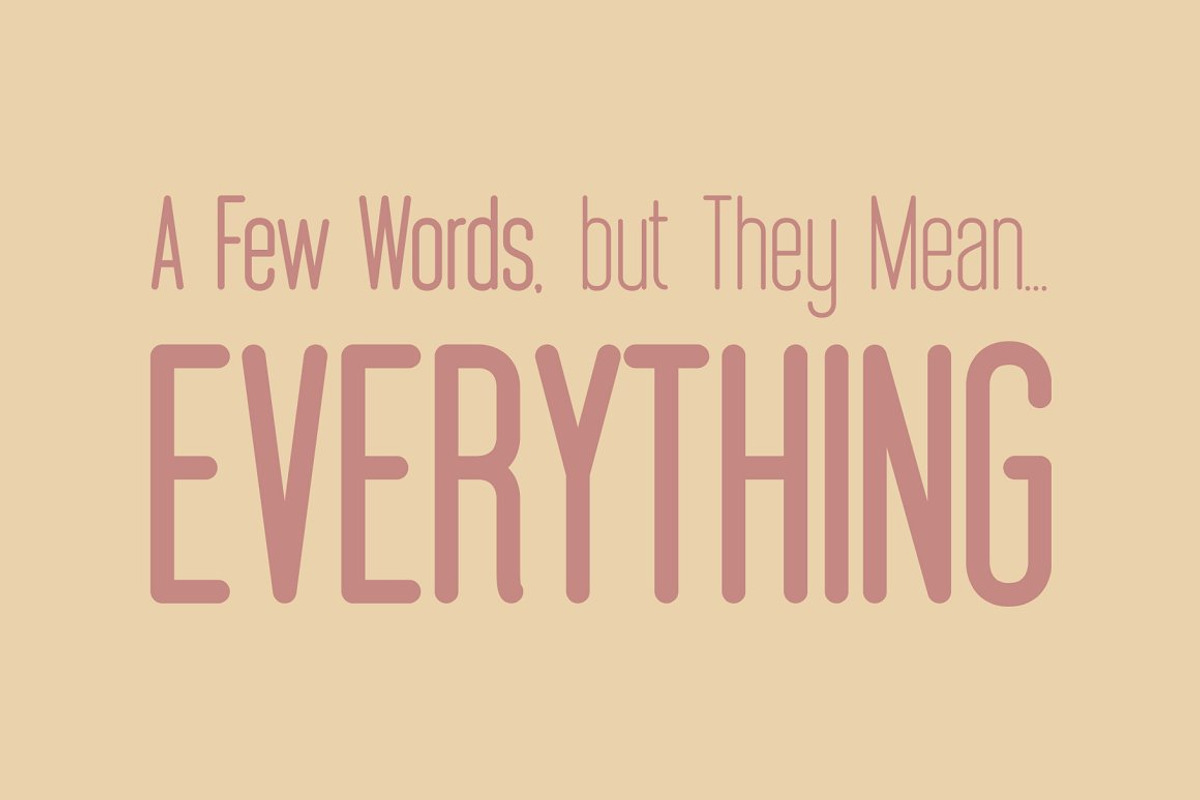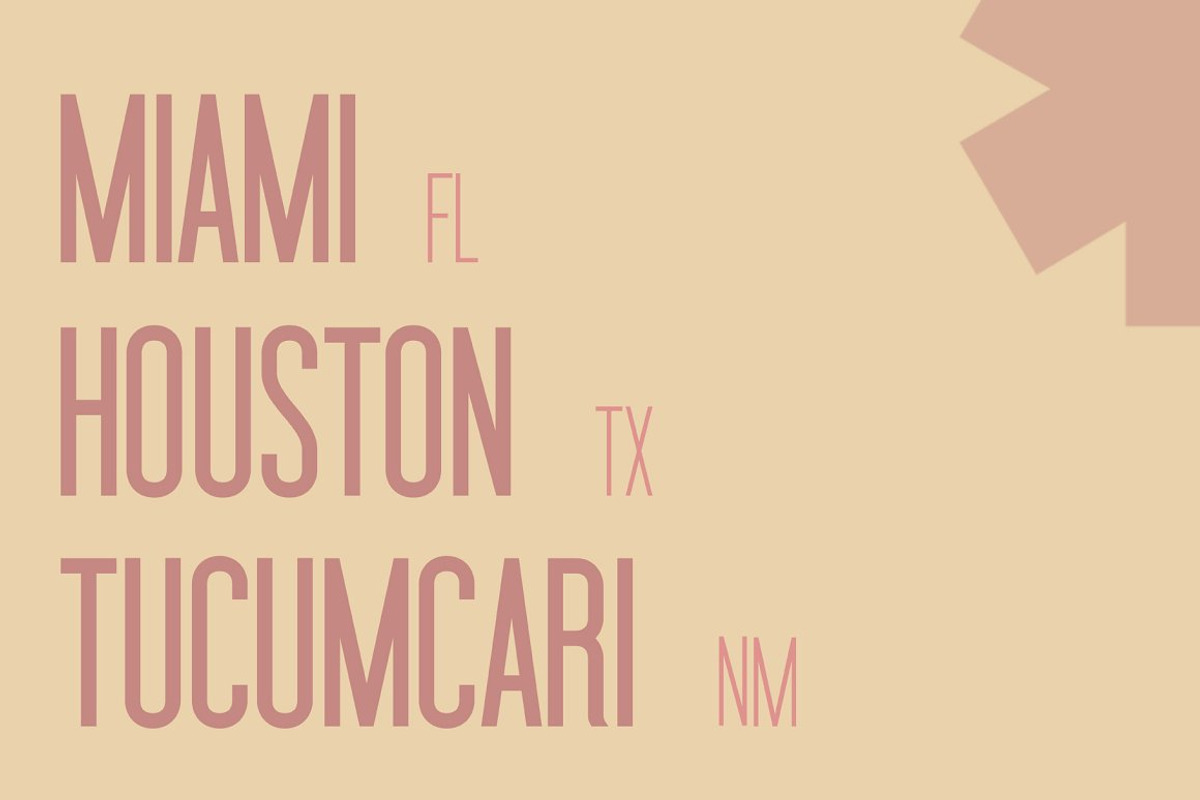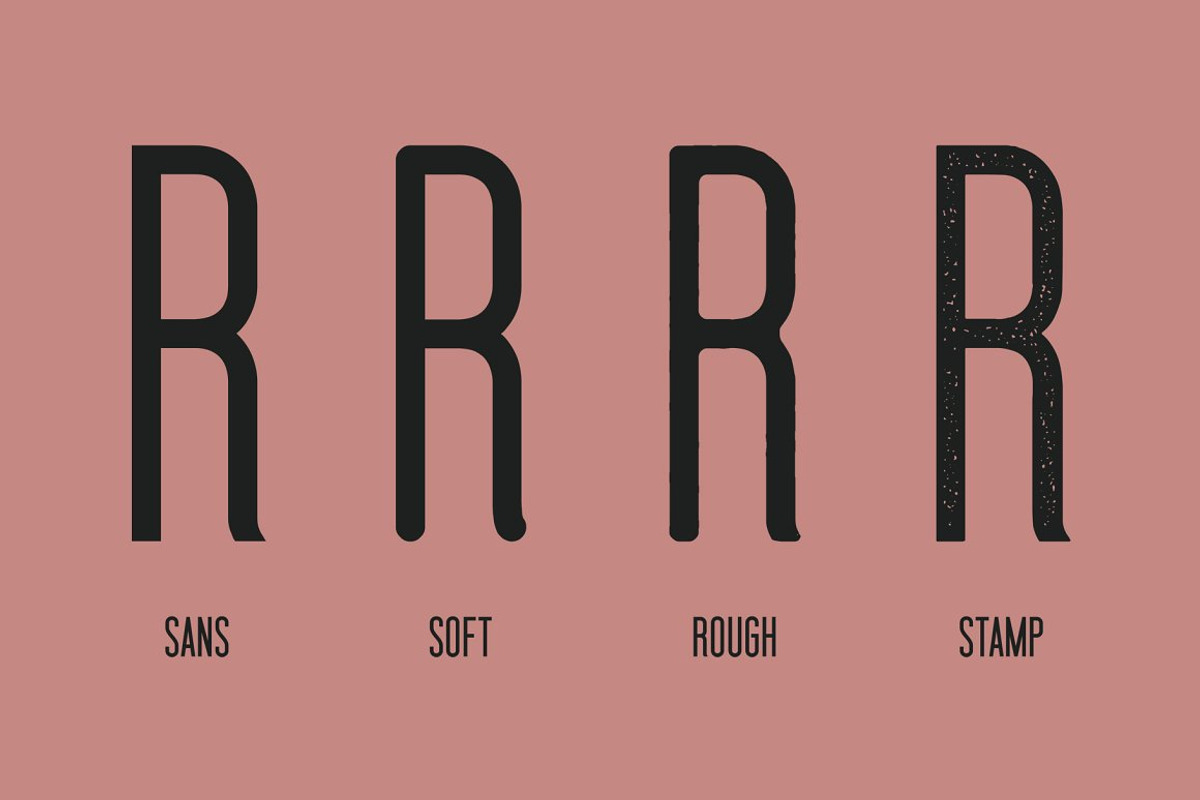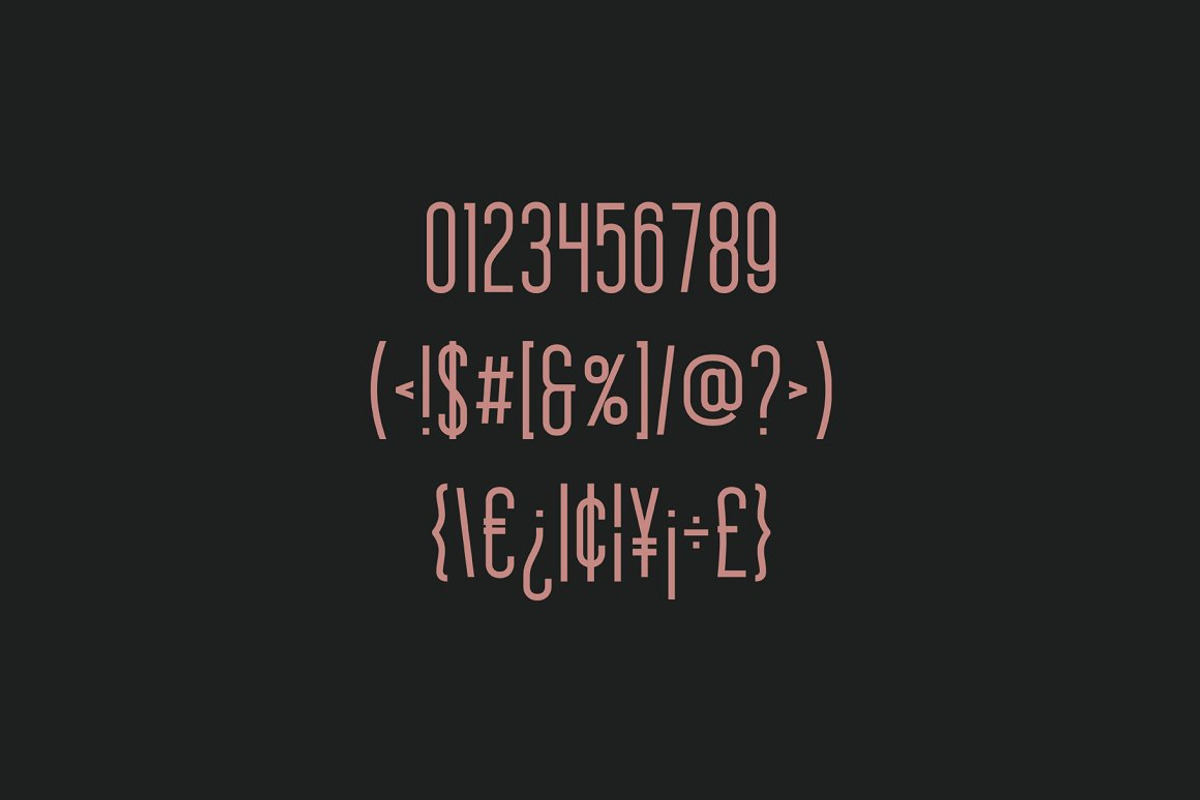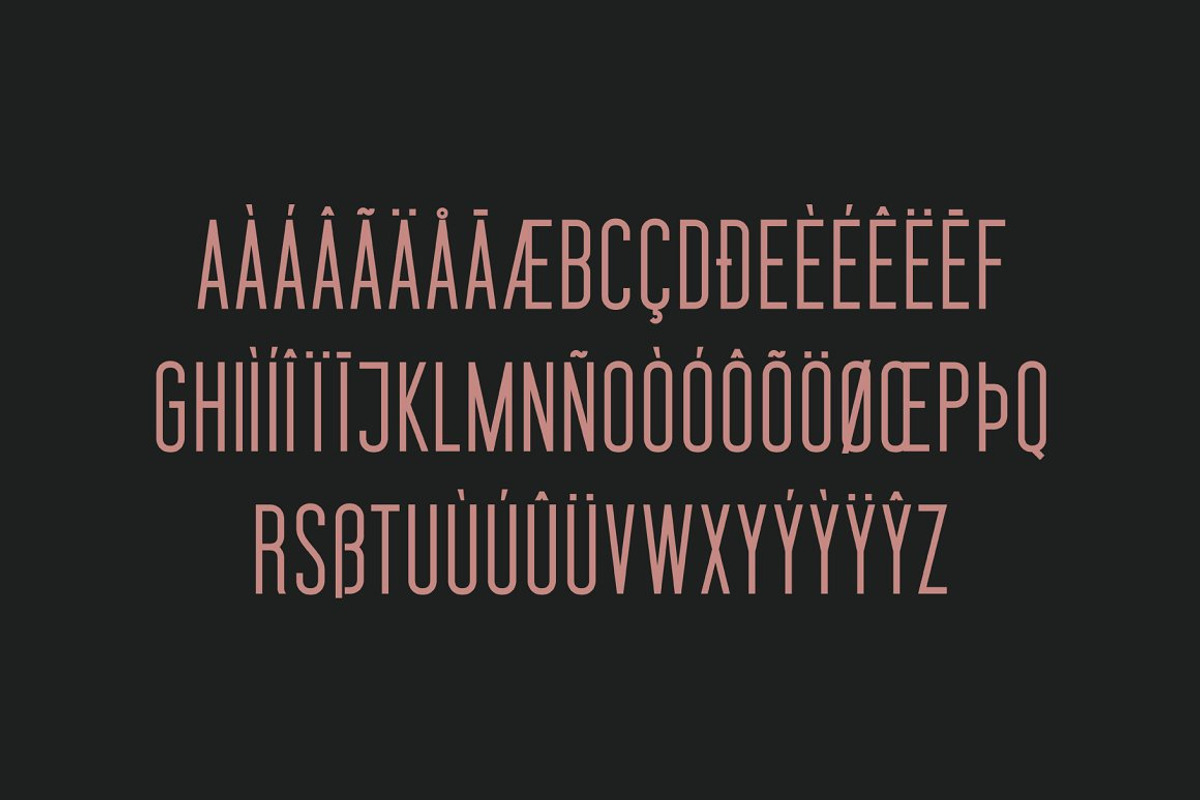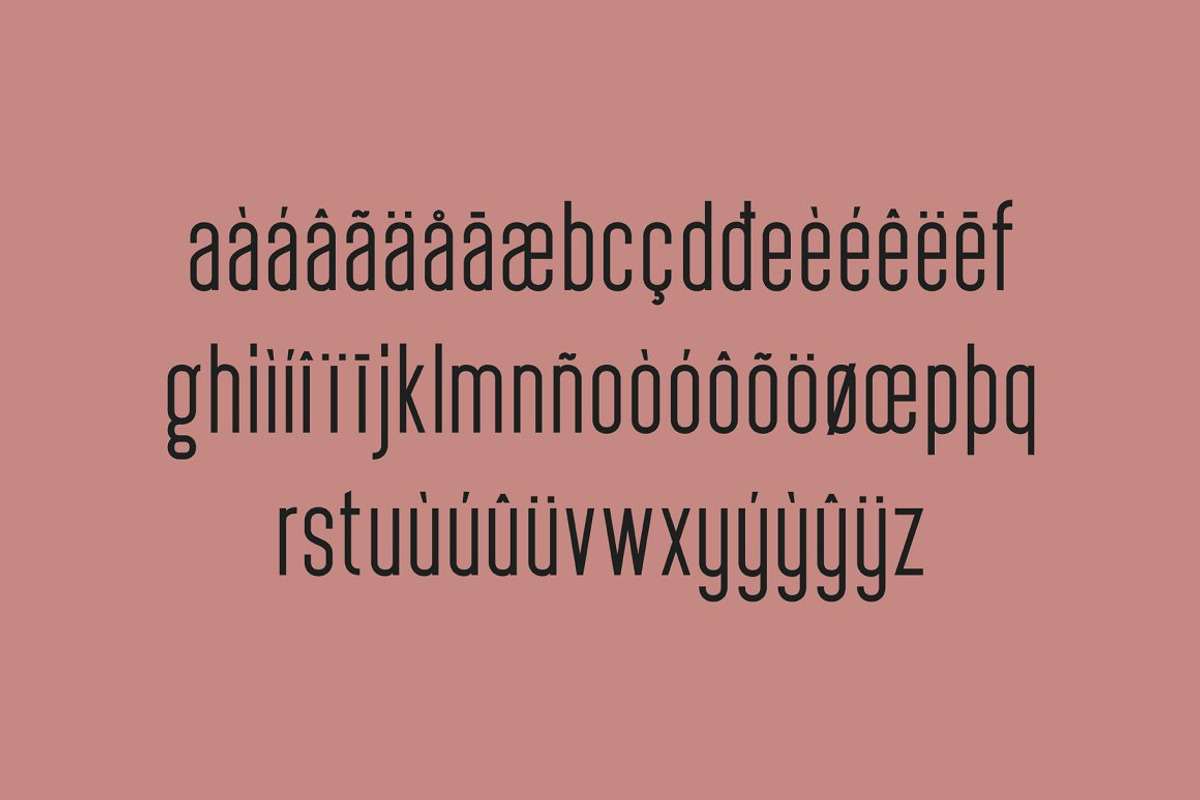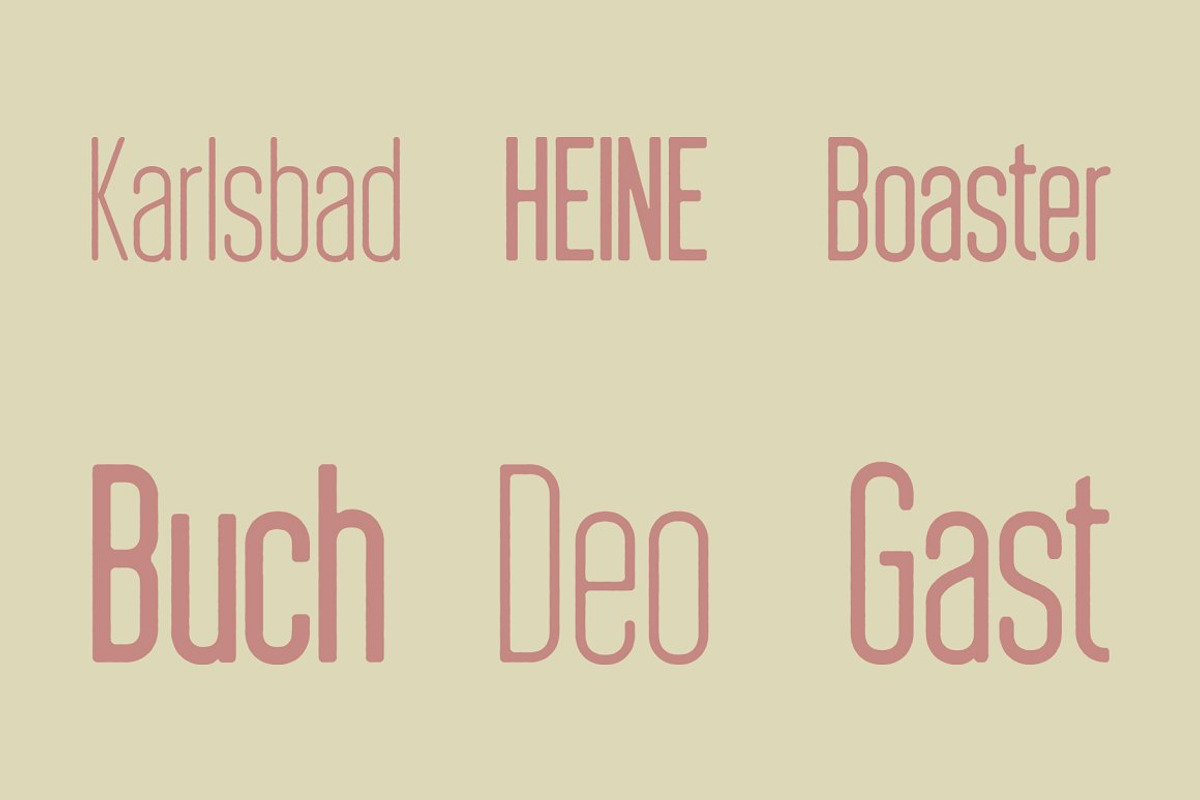
Braden Sans Font Family
Braden Sans Font Family is a mix between modern and retro sans serif font in 4 styles (normal, soft, rough and stamp) with little condensed feel. Three weights and italic styles of each style can help users create eye-catching designs and brands. Braden Font Family is great for screen, editorial, publishing, logos, advertising, branding and corporate identities. It support a wide range of languages.
ÀÁÂÄÃÅĀ Æ Ç ÈÉÊËĒ ÎÏÍĪÌ Ñ ÔÖÒÓØÕ ÛÜÙU ŸÝỲŶ ÞŒ
àáâäãåā æ ç èéêëē îïíīì ñ ôöòóøõ ûüùu Ÿýỳŷ þœ